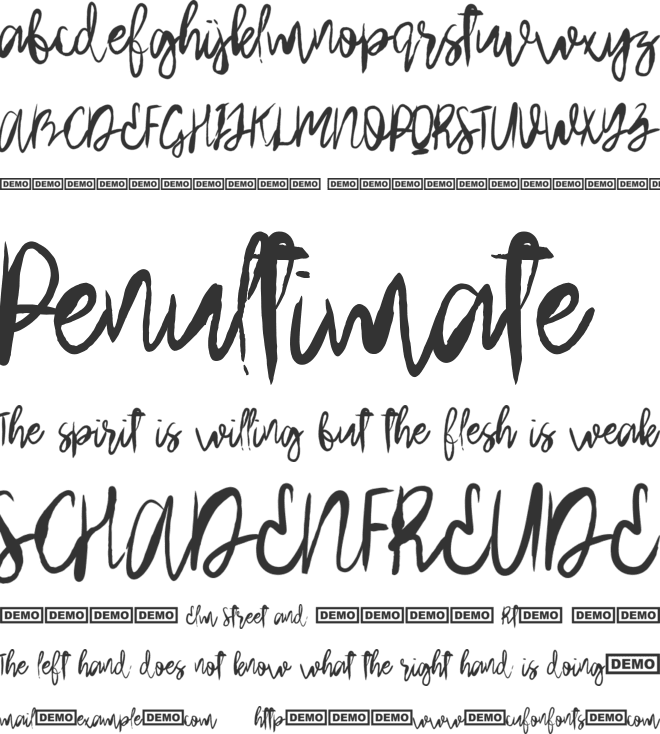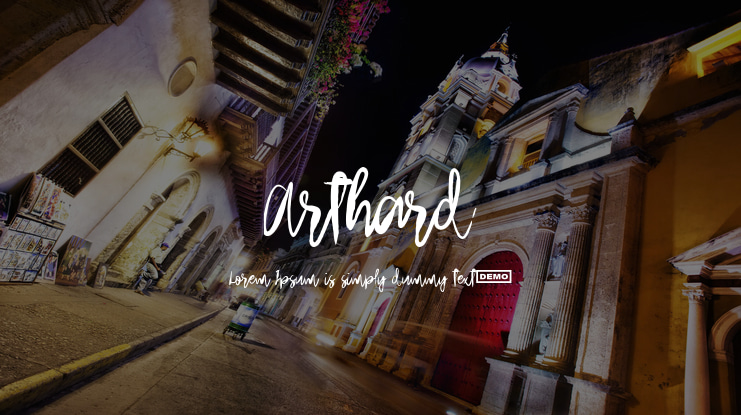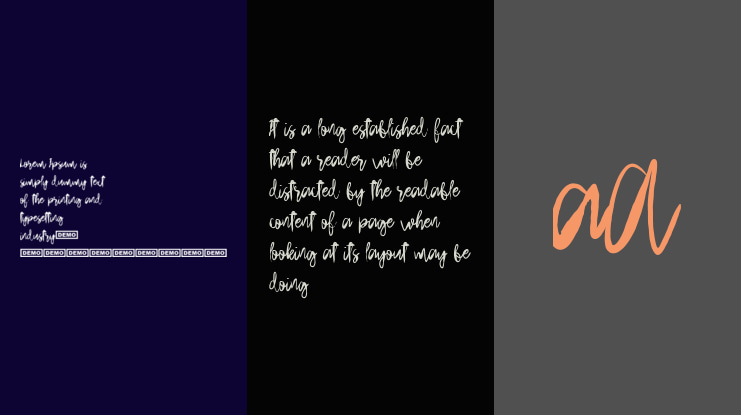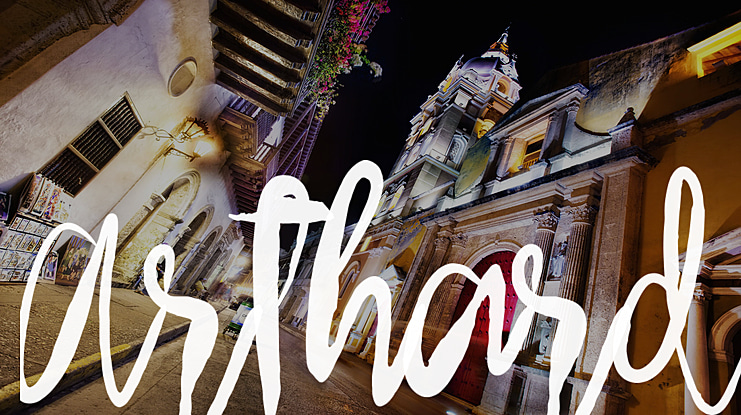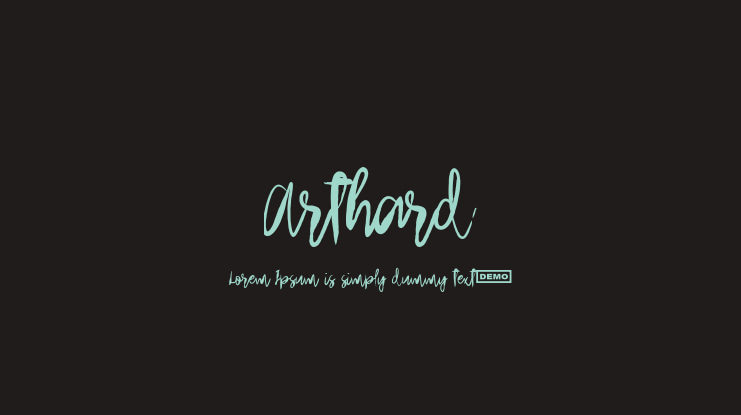
Arthard Font
Take a look on those grunge characters which will add charisma to any of your designs! Full version of Arthard comes with upper and lowercase characters, basic punctuation, numbers and special glyphs, so the font can be used with most of the European languages. ----------------------------------------------------- Contact me if you have any questions:  ----------------------------------------------------- Enjoy!